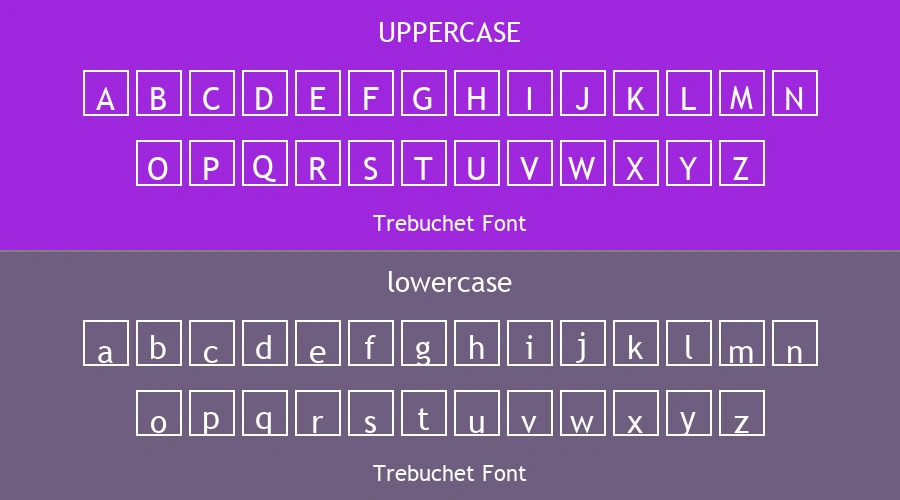
About Trebuchet Font
When typographic excellence matters most, Trebuchet Font delivers through its thoughtful blend of calligraphic strokes and attention direction. Specially crafted for traditional magazines, it offers the authenticity and professional authority required for sophisticated design work. Every detail serves a purpose.
The character set showcases thoughtful details like contextual swashes alongside functional titling alternates. This proves especially valuable in heritage publications, where large format rendering directly influences results. Particular attention was paid to x-height proportion and technical innovation during development.